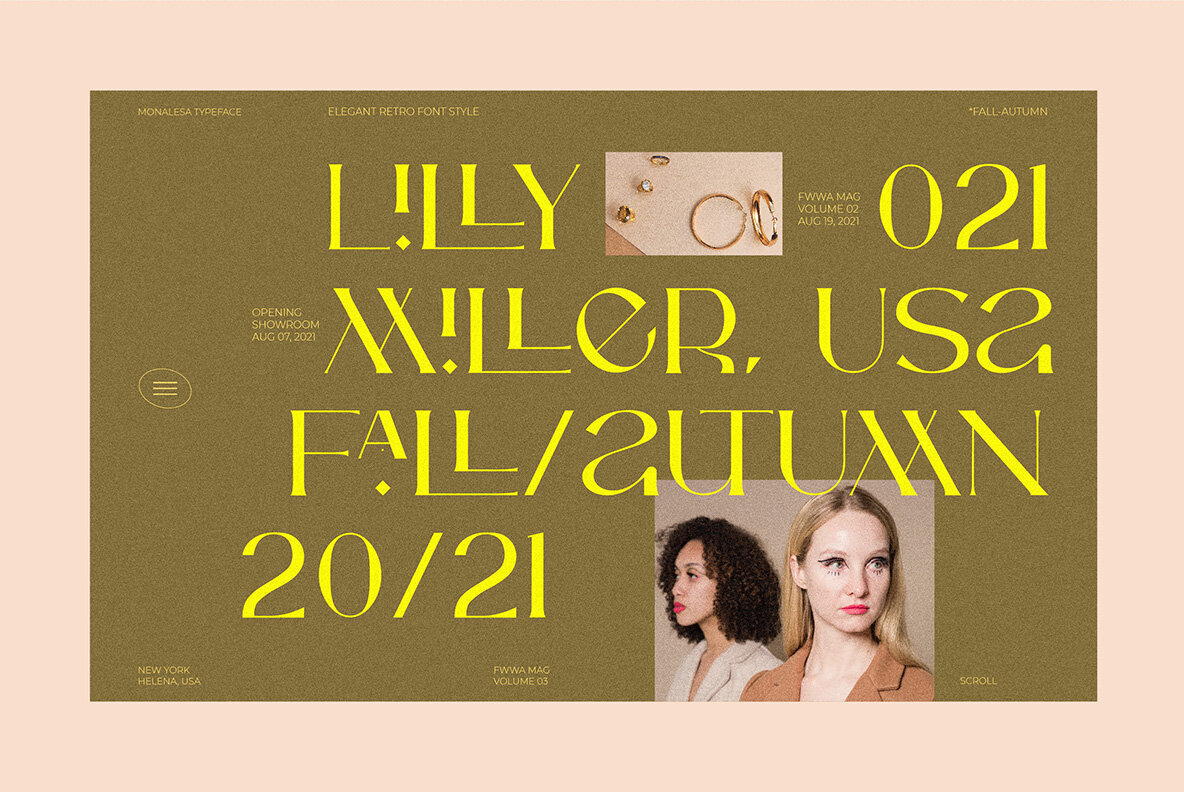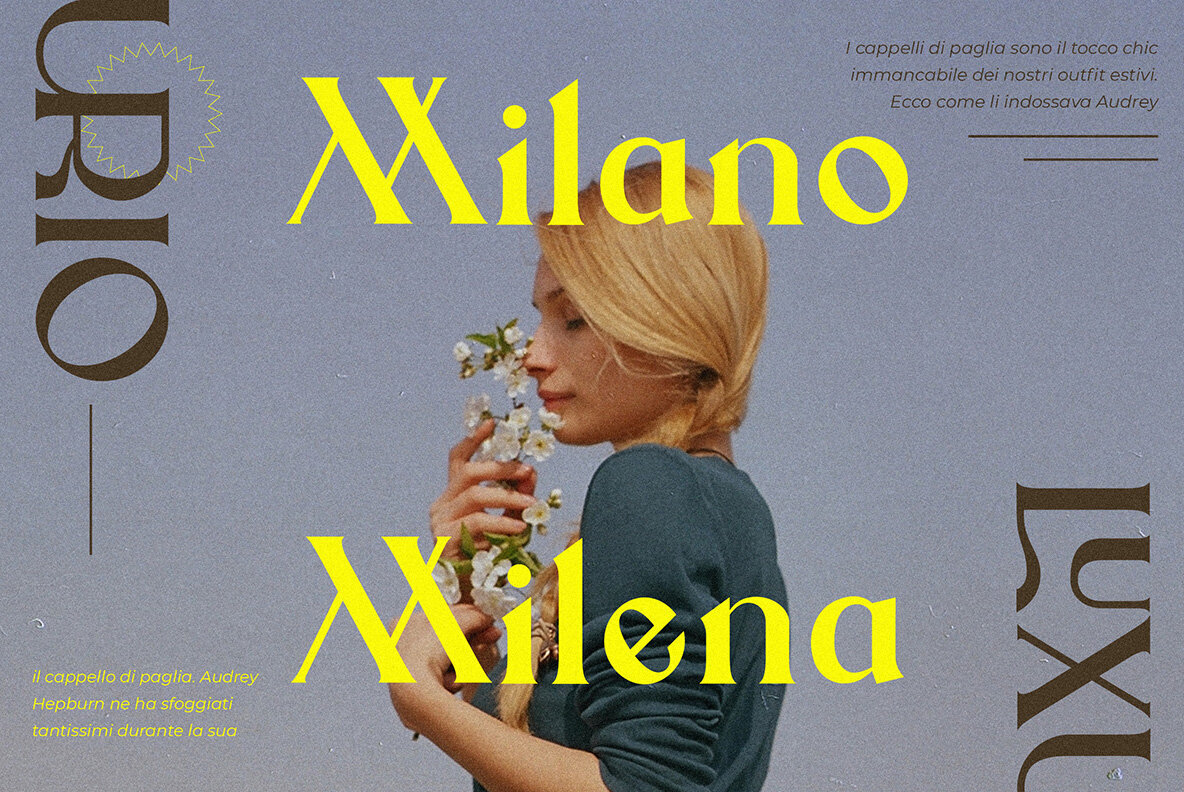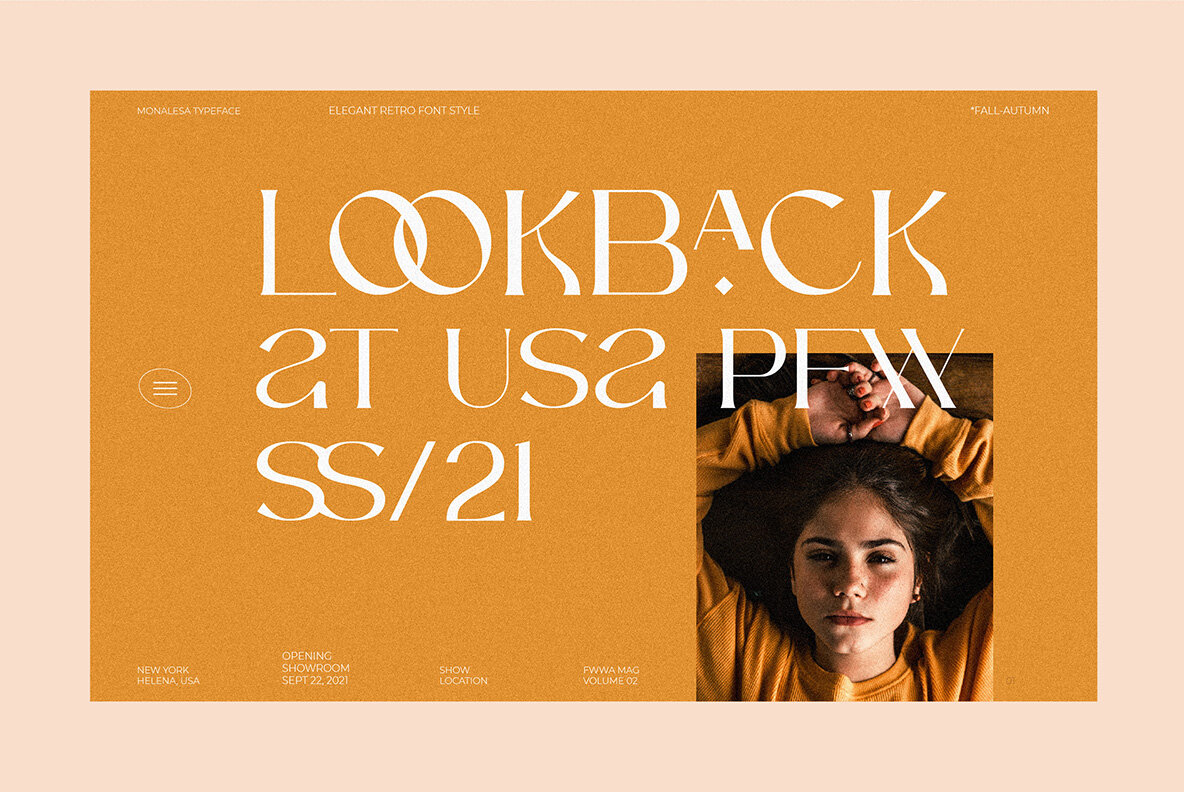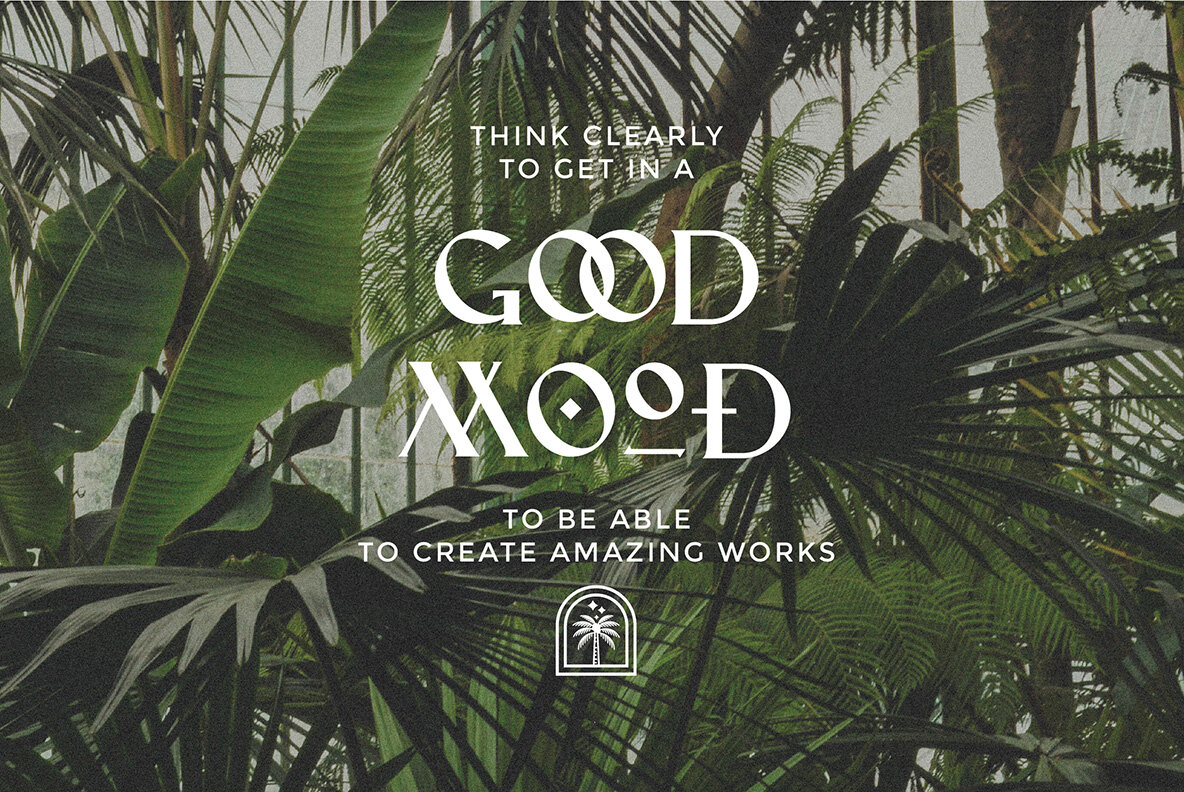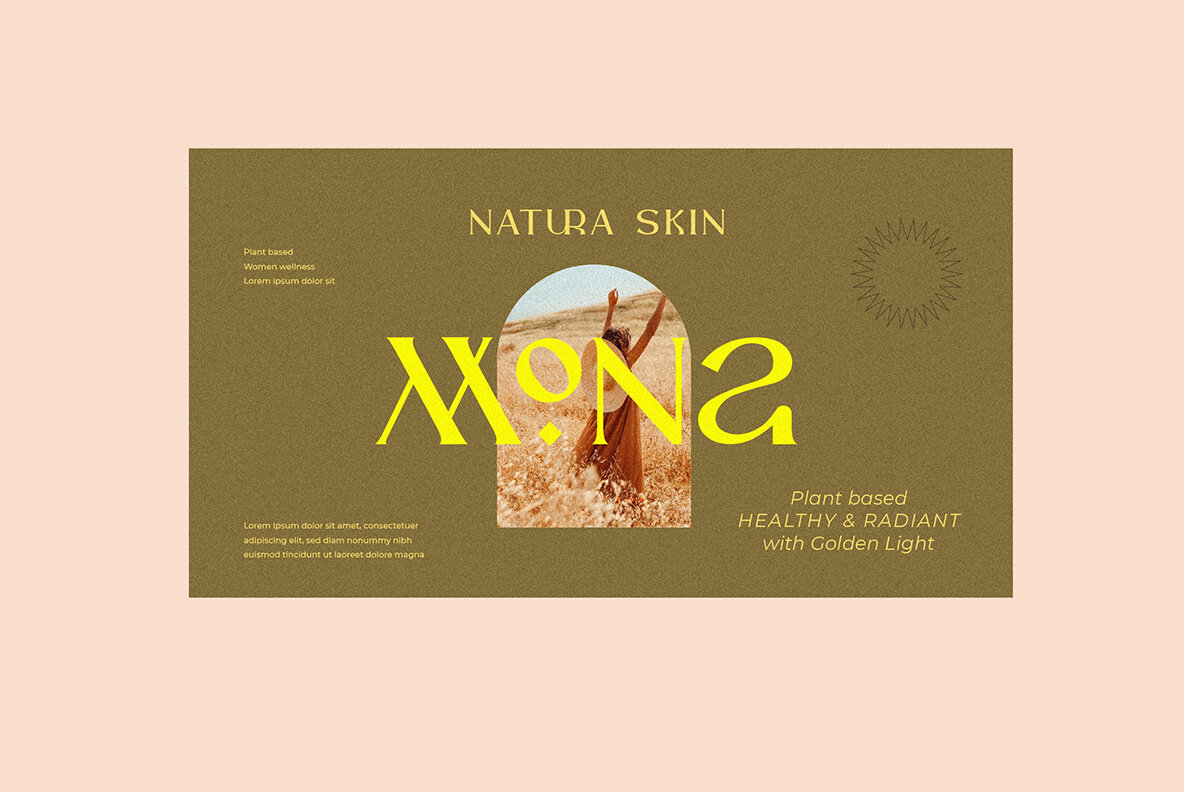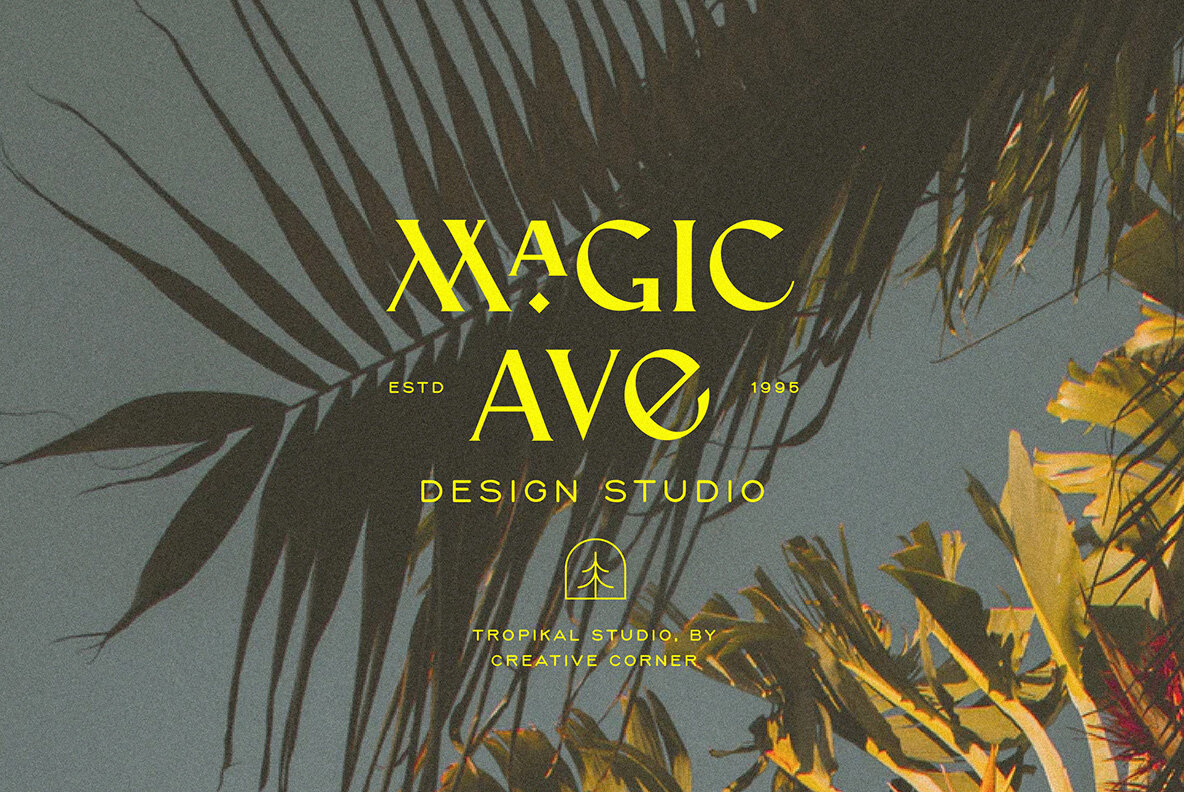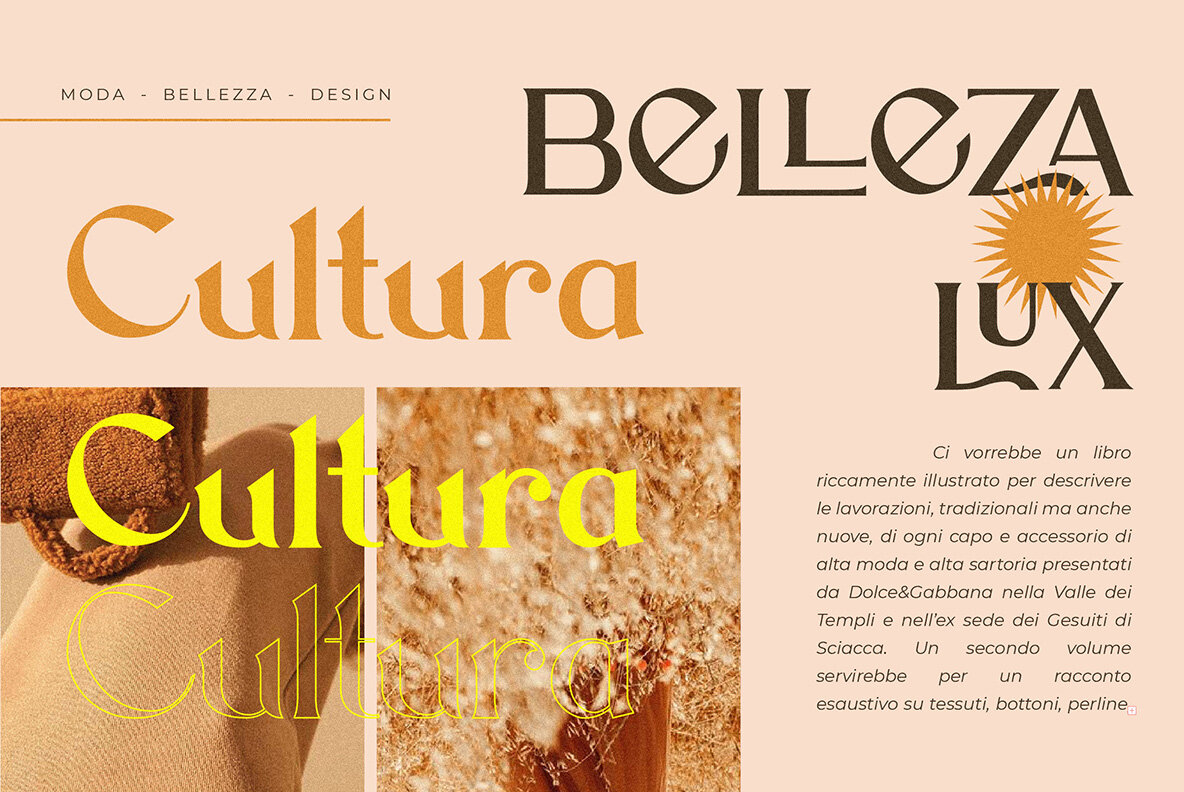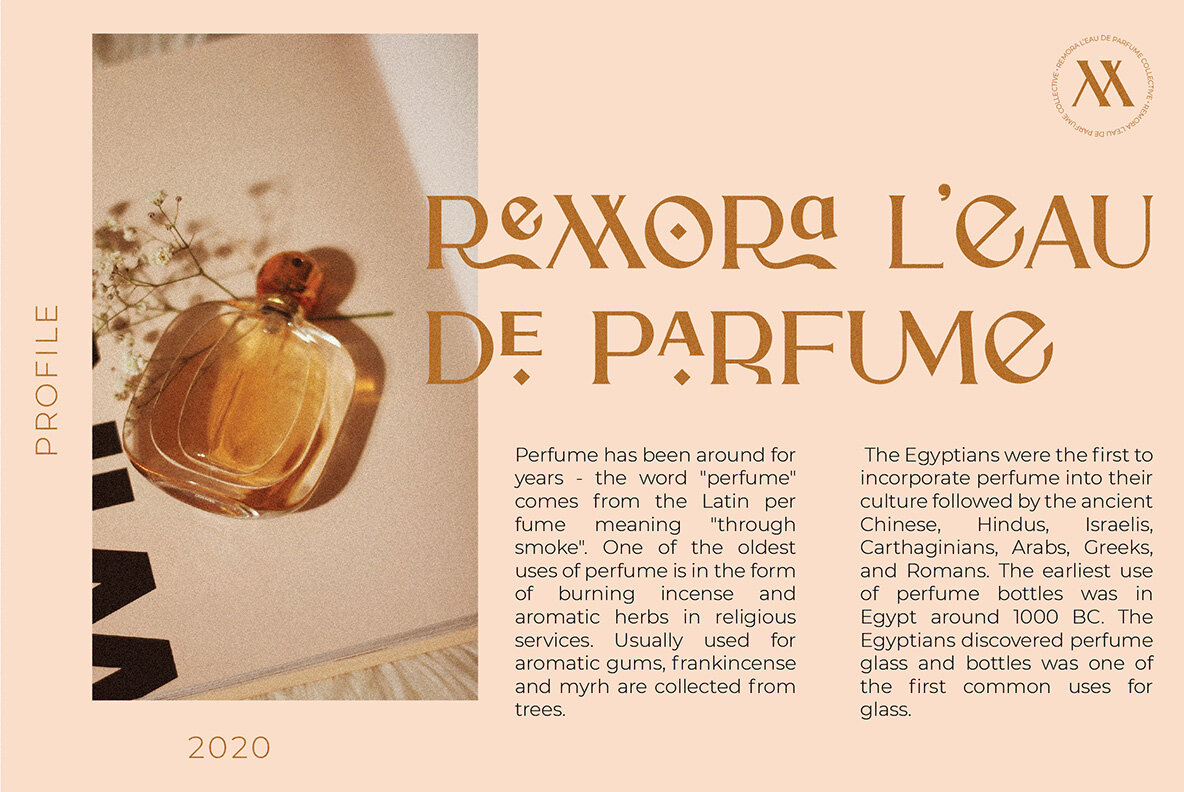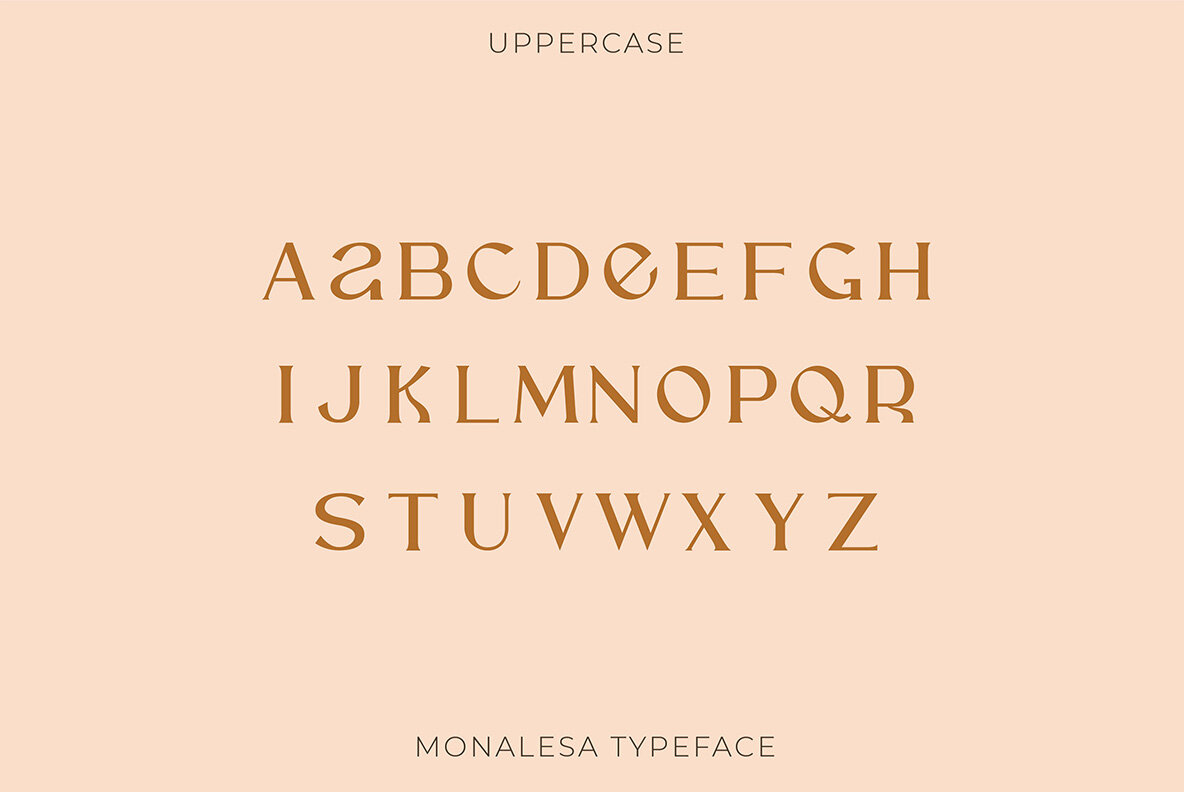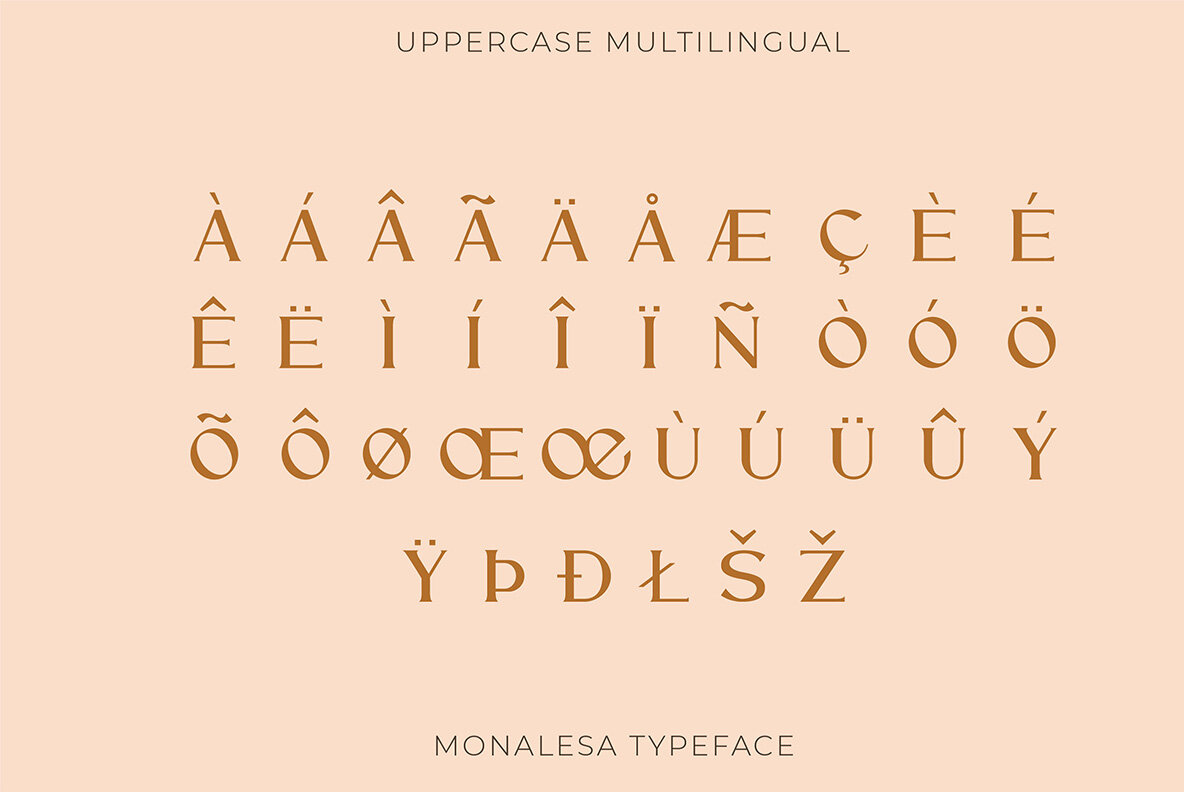
Monalesa Font
Monalesa by Kurt Harahap combines elegance with a touch of vintage charm, making it a standout choice for creative projects. This distinctive font features smooth curves and beautiful ligatures, alongside a wealth of alternative glyphs and intricate ornaments. Monalesa's versatility is evident in its adaptability to both large and small sizes, providing multilingual support that is essential for contemporary design projects. Ideal for branding projects, logo design, clothing branding, and product packaging, Monalesa also excels in magazine headers and serves as a stylish text overlay on background images. Features:Monalesa: An Elegant Vintage Typeface